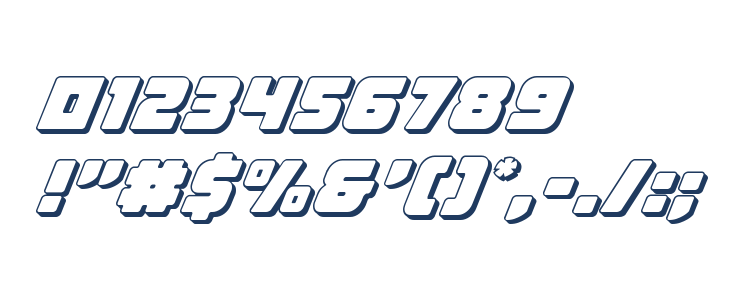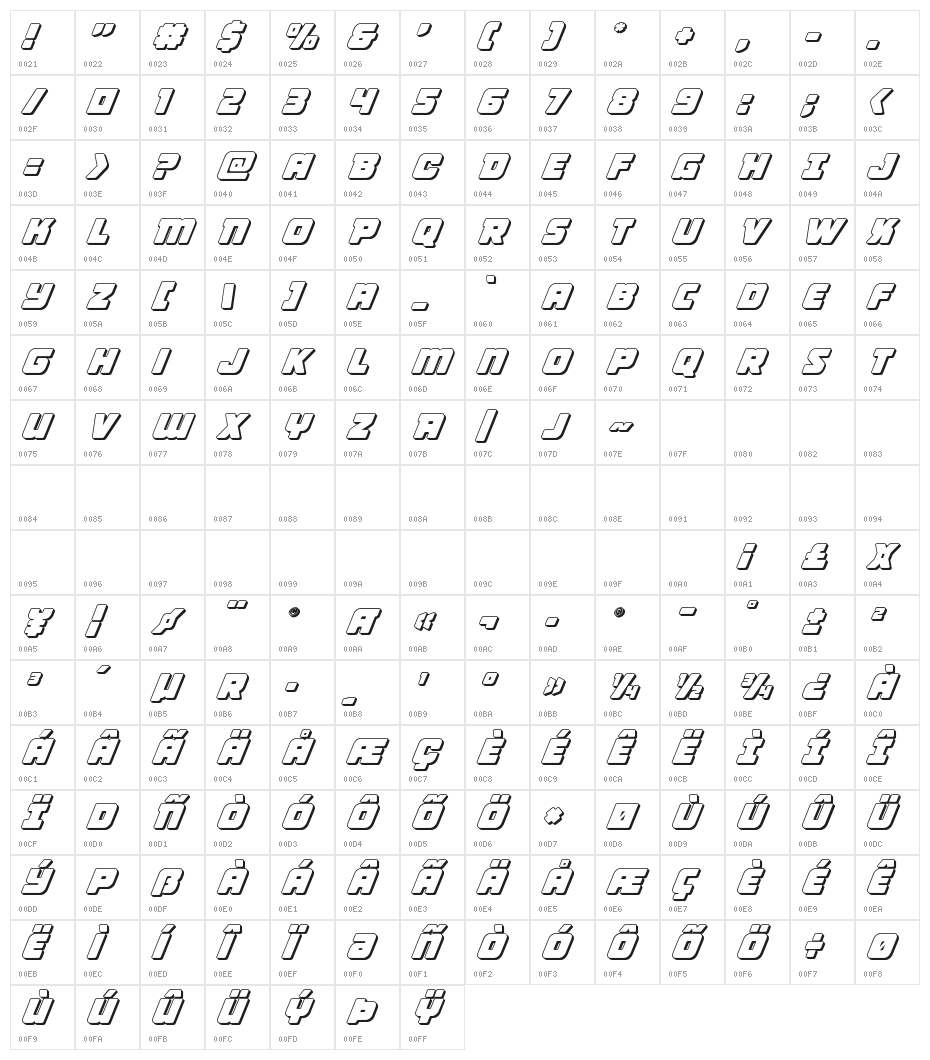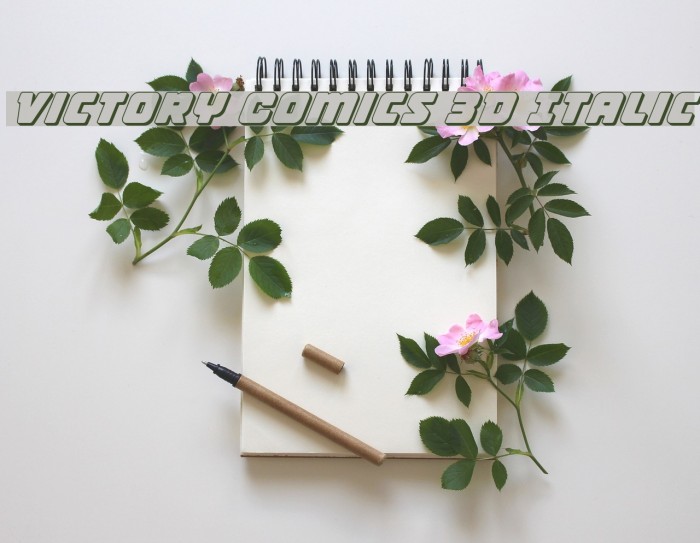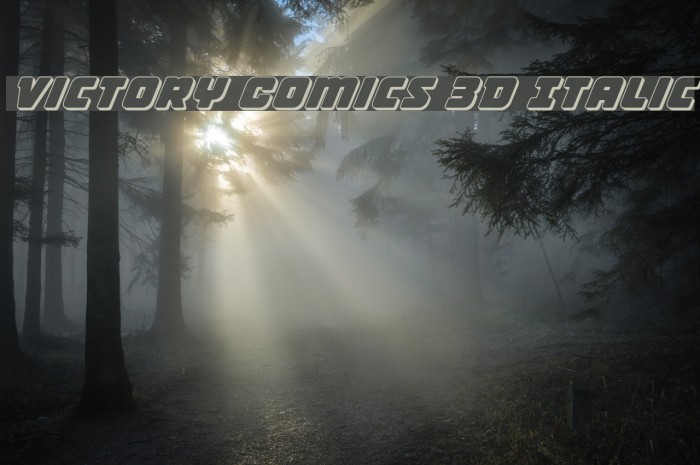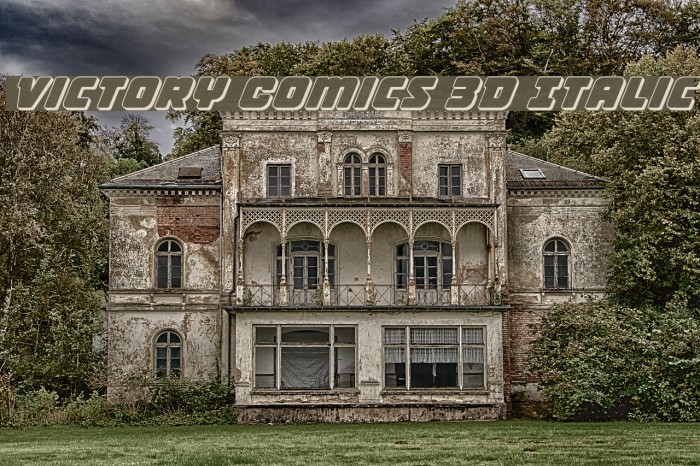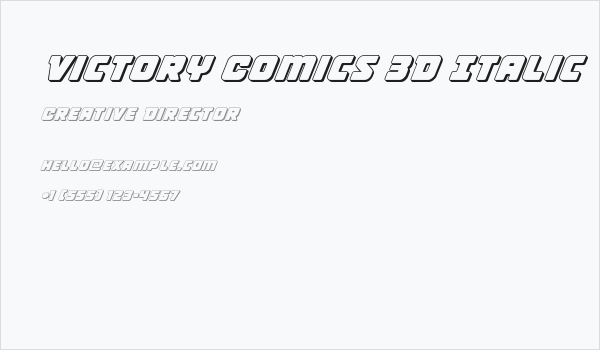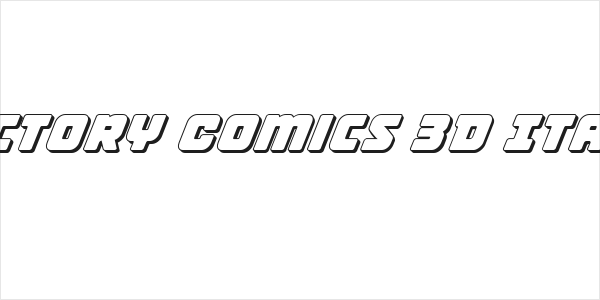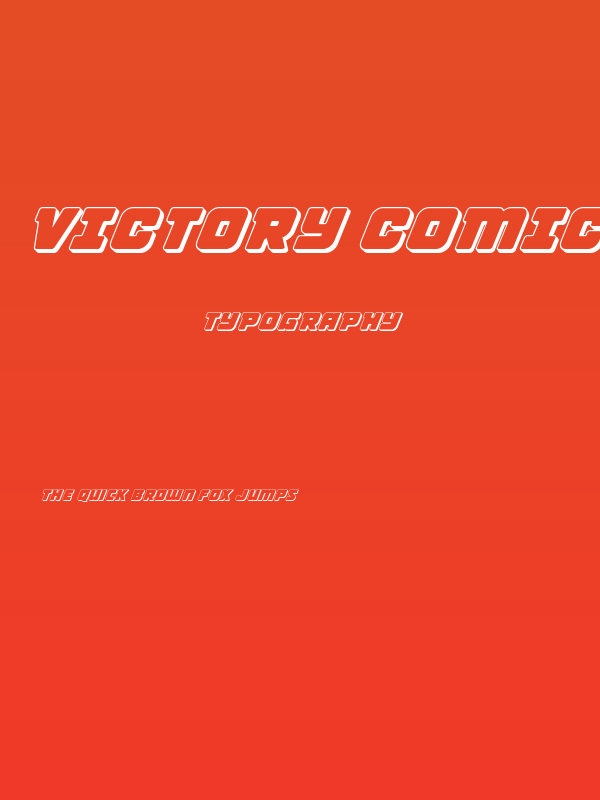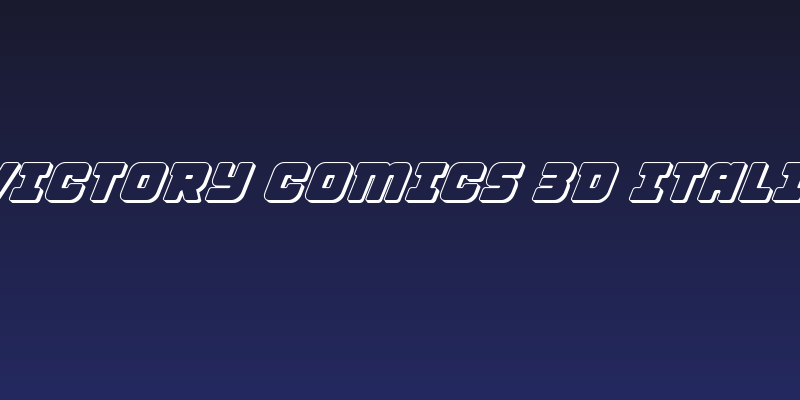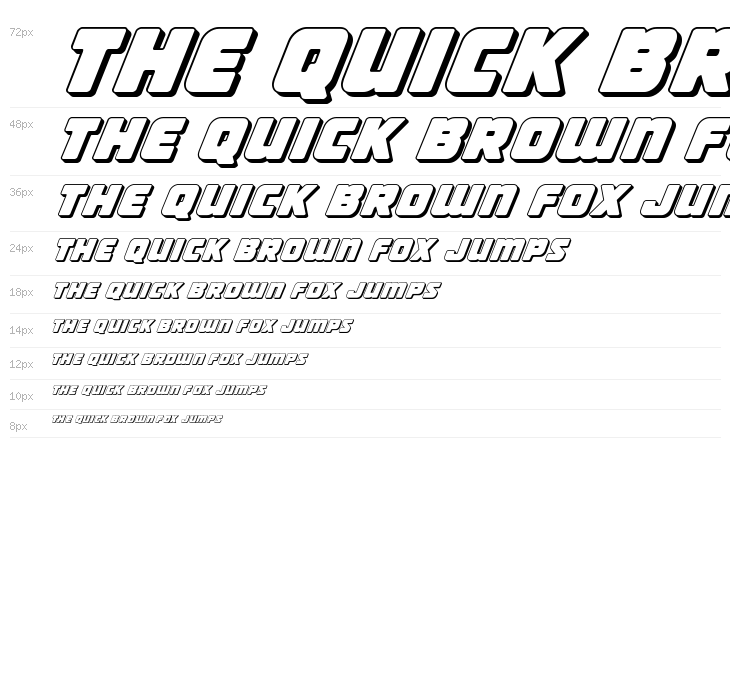
Victory Comics 3D Italic Font
Victory Comics 3D Italic Description
This font features a bold, three-dimensional style with a strong italic slant, giving it a dynamic and energetic appearance. The characters are outlined, adding depth and a comic book feel. The font's design is playful and eye-catching, making it ideal for projects that require a fun and engaging look. The uppercase and lowercase letters maintain a consistent style, with rounded edges and a slight blocky form. Numbers and special characters are included, matching the overall aesthetic. The font's unique style makes it stand out, perfect for creative and informal applications.
| Proposed Projects | Ideal for comic book titles, playful posters, children's book covers, and video game graphics. |